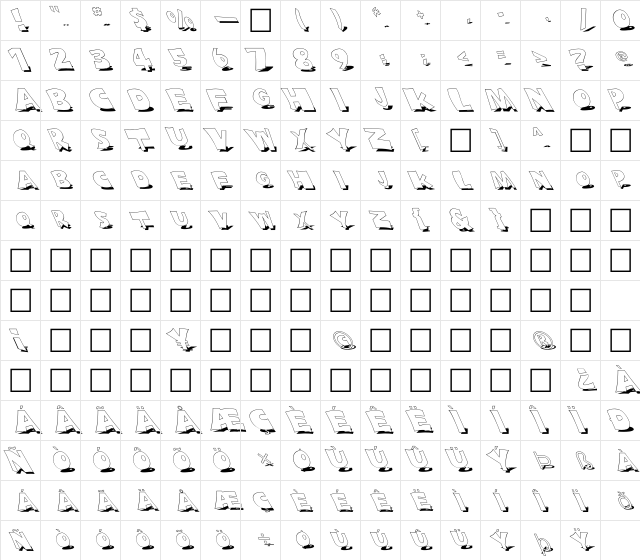
FZ JAZZY 10 SHADOW LEFTY Normal
Design Context for FZ JAZZY 10 SHADOW LEFTY Typeface
FZ JAZZY 10 SHADOW LEFTY is built around its visual character rather than neutral utility — its distinctive forms are designed to make an impression at display sizes.
Font Pairing: Pair with a clean neutral sans-serif for body copy to let FZ JAZZY 10 SHADOW LEFTY's character lead without overwhelming the composition.
Pro Tip: Treat FZ JAZZY 10 SHADOW LEFTY as the centrepiece of your typographic hierarchy. One strong heading set in a decorative face can carry an entire layout.